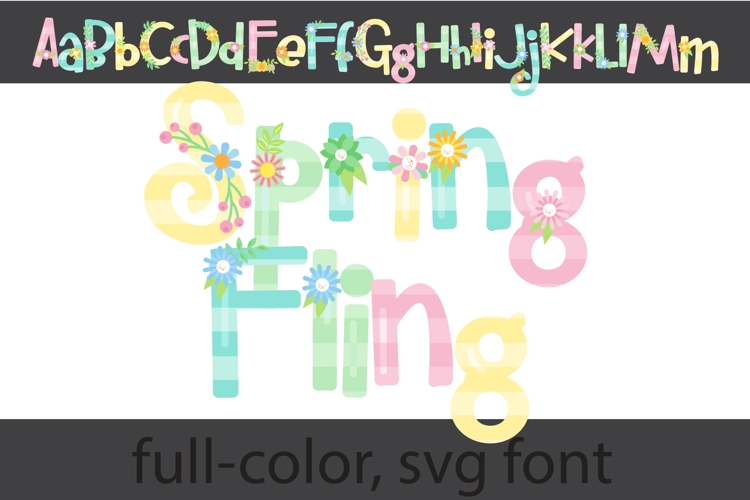
Spring Fling Color Font
This full-color, bouncy, sans serif font with florals throughout in springy palette. There is an alt case of additional colors of each letter that you can access through your system's character map.